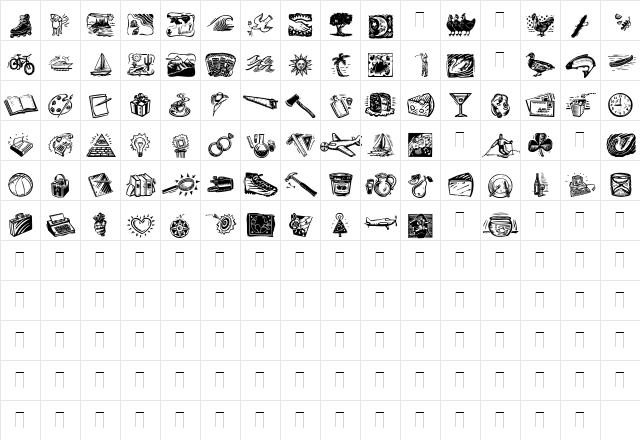
DF Organics Medium
Design Context for DF Organics Typeface
DF Organics is a composed and adaptable typeface that performs quietly and consistently across a wide range of design contexts.